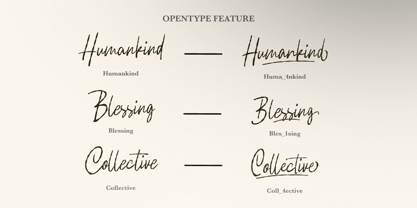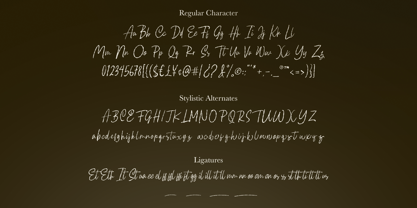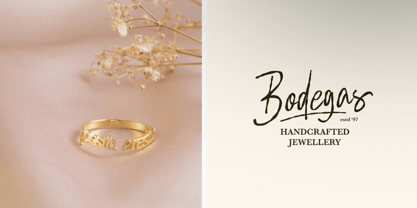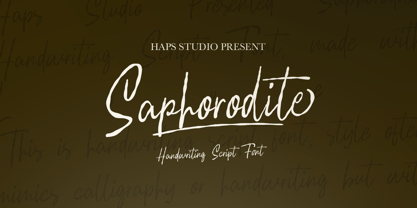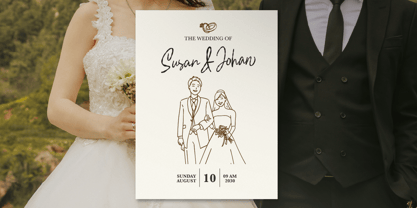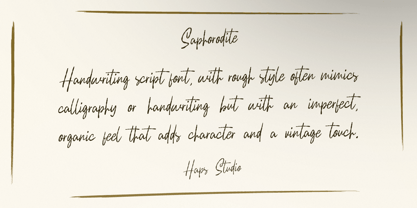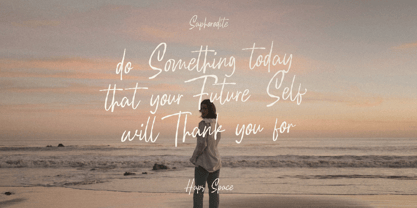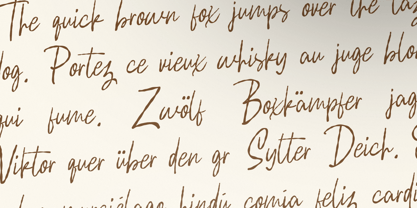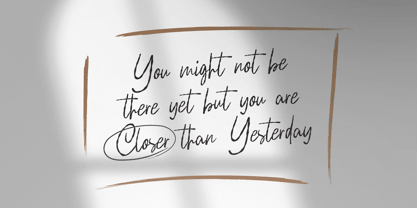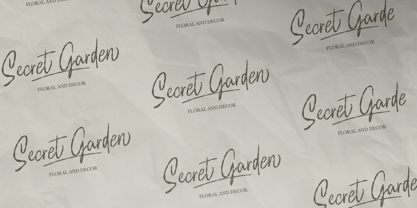
Saphorodite
by Haps Space
The Saphorodite Font Family was designed by Haris Purnama Putra, Egi Ahmad Mufid and published by Haps Space. Saphorodite contains 1 styles. More about this family
Saphorodite Handwriting Font is a Signature Script Font comes with alternatives and ligatures, helps to create stunning Posters, Branding, Tshirt, Social Media Graphics and much more.
Designers: Haris Purnama Putra, Egi Ahmad Mufid
Foundry: Haps Space